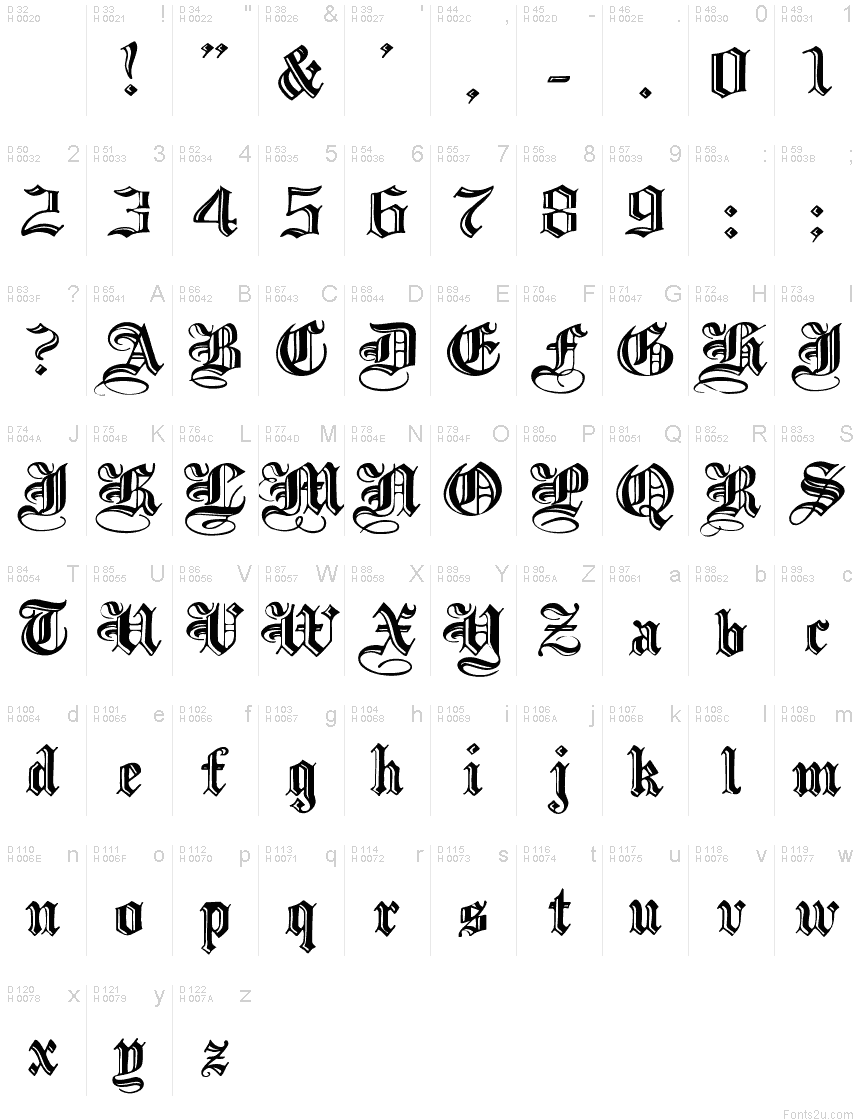
IncisedBlackWide Normal
Incised Black Wide font by PJL is a free gothic medieval initials typeface. Its wide, ink-heavy strokes and sharply chiseled curves feel like they’ve been carved into stone, while the tall, sweeping caps add a ceremonial, almost heraldic presence. The letters lock together in a dense, textured wordshape that immediately signals old-world drama and dark fantasy atmosphere.
Using Incised Black Wide, short words and monograms turn into ornate crests, making this free font a natural fit for book covers, fantasy game titles, band logos, certificates, posters, and event branding. It shines when set large, letting the intricate curves and barbed edges breathe; pair it with a plain, modern sans serif for body copy to keep things readable while the gothic letterforms steal the spotlight.